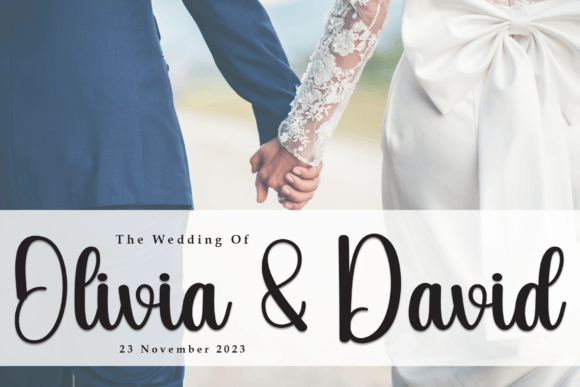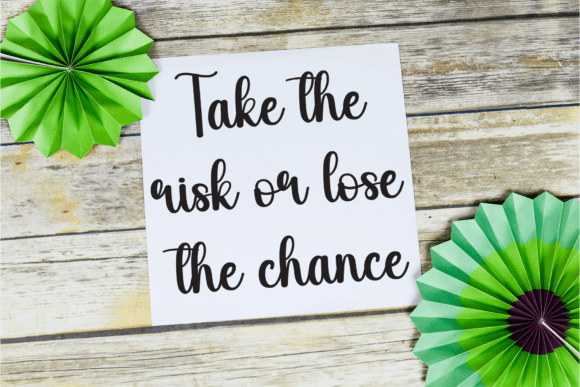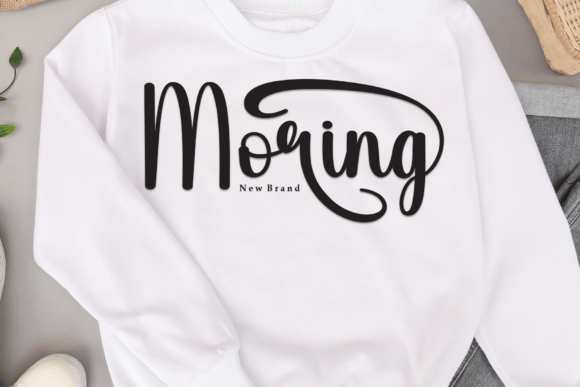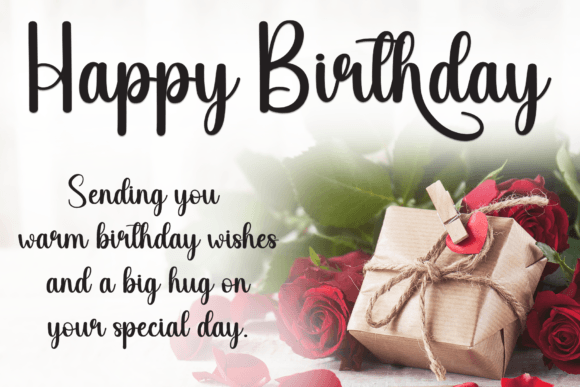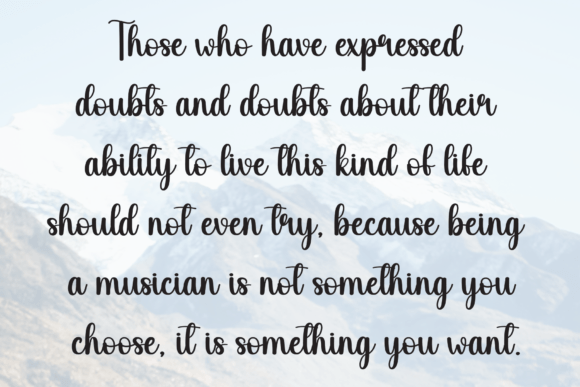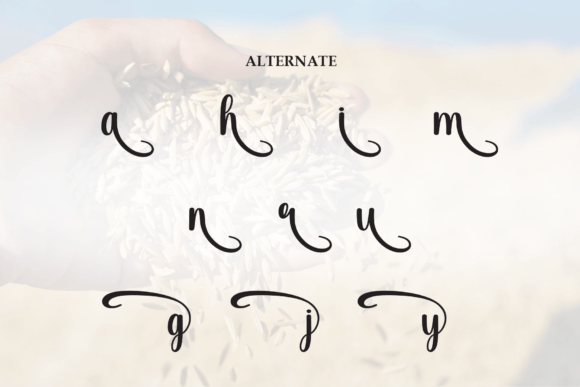
Introduction to Rice Drying Font
As a designer, have you ever been stuck on a project, searching for the perfect font to give it that extra special touch? It’s a feeling we’ve all been there – staring at a blank screen, trying to come up with the perfect idea, until suddenly, a spark of creativity strikes and everything falls into place. For me, that moment happened when I stumbled upon the delightful Rice Drying Font.
This sweet and friendly handwritten display font is a game-changer for any creative project. With its high-quality design and transparent background, it’s the perfect addition to any design resource. And the best part? It’s available for free download, making it an accessible and valuable asset for designers of all levels.
Whether you’re working on a wedding invitation, a birthday card, or any other design that needs a fun touch, the Rice Drying Font is sure to bring a smile to your face and a unique flair to your work.
Rice Drying Font
- Unique, hand-drawn design created specifically for a creative project involving rice drying.
- Transparent background, making it easy to overlay on any image or design without a distracting background.
- Perfect for designers and artists looking for a one-of-a-kind design resource.
- Ideal for use in illustrations, graphics, and digital art projects that require a custom, creative font.
Honest Review: Rice Drying Font
I recently came across the Rice Drying Font, and I must say it’s an interesting addition to my design resource library. The font has a unique aesthetic that can add a creative touch to various projects.
One of the things that stands out about the Rice Drying Font is its high-quality design. The font has a clear and crisp appearance, making it perfect for use on transparent backgrounds. ✨ The font’s unique style also makes it an excellent choice for projects that require a touch of elegance and sophistication.
Some of the key features of the Rice Drying Font include:
- Unique and elegant design
- High-quality appearance
- Perfect for use on transparent backgrounds
However, there are a few limitations to keep in mind. ⚠️ The font may not be suitable for all types of projects, particularly those that require a more modern or minimalist look. Additionally, the font’s unique style may not be to everyone’s taste.
Overall, I think the Rice Drying Font is a solid addition to any designer’s library. While it may have its limitations, the font’s high-quality design and unique aesthetic make it an excellent choice for creative projects. ✨
Designing with High Quality Fonts
To get the most out of the Rice Drying Font, try combining it with other design elements, such as images and textures, to create visually appealing designs.
The Rice Drying Font is perfect for:
- Food and beverage designs
- Agricultural and farming projects
- Summer and outdoor-themed designs